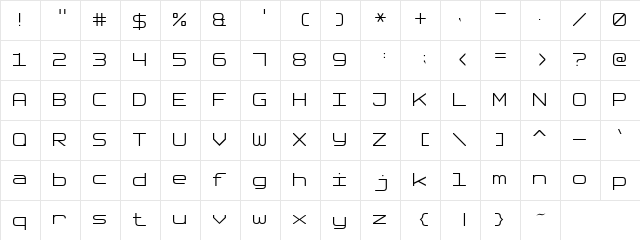
Software Tester 7 Regular
| Foundry | Style-7 |
| Designer | Sizenko Alexander |
Design Context for Software Tester 7 Typeface
Software Tester 7 offers clean, dependable letterforms without strong stylistic allegiance, making it a practical choice for designers who need flexibility.